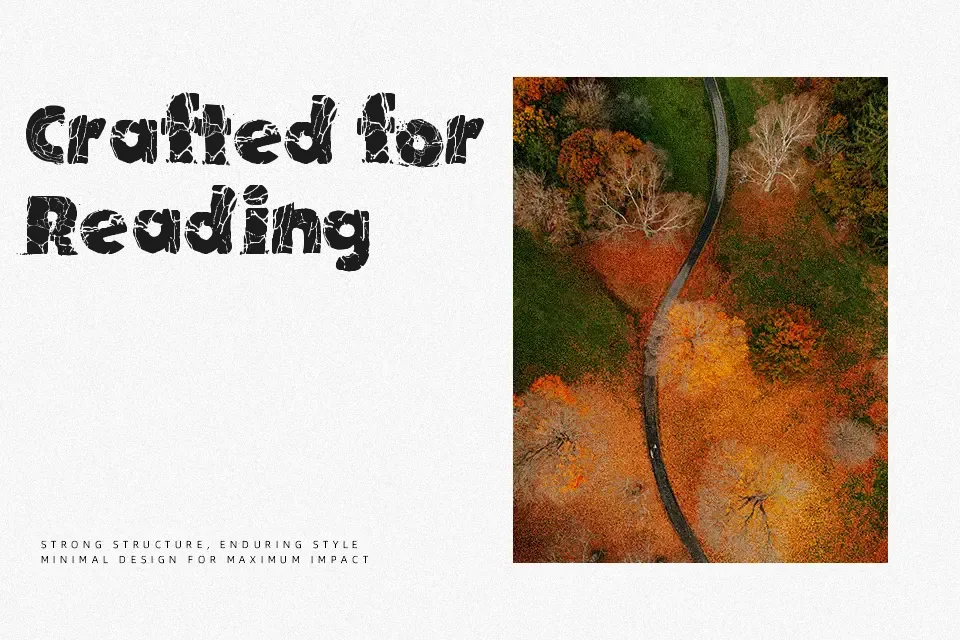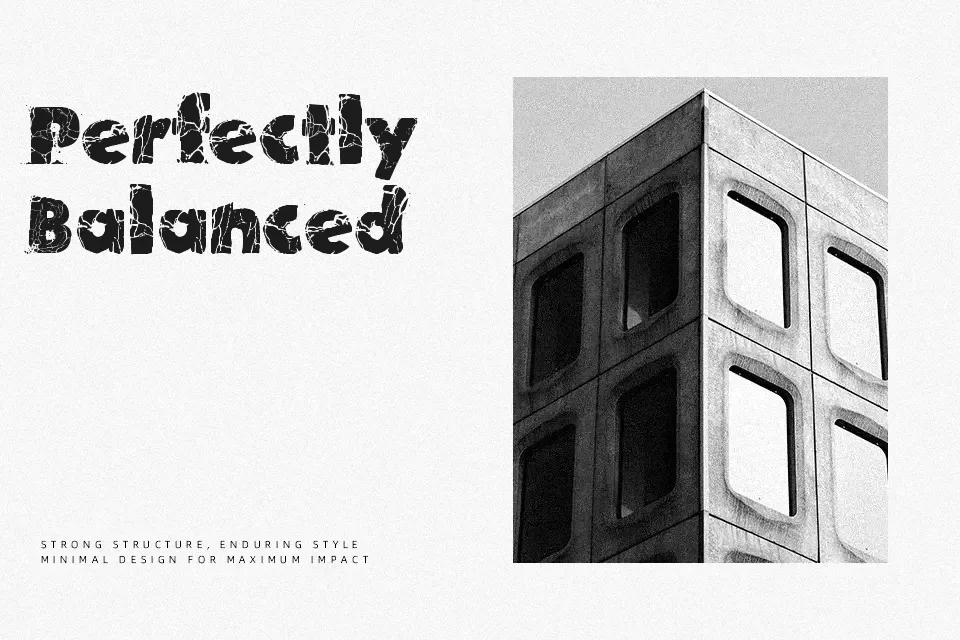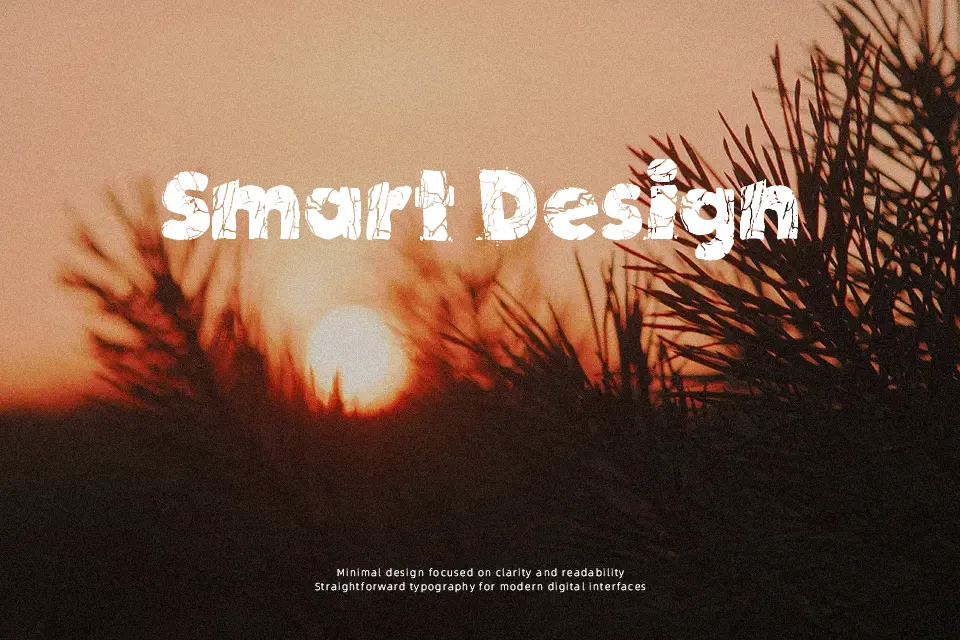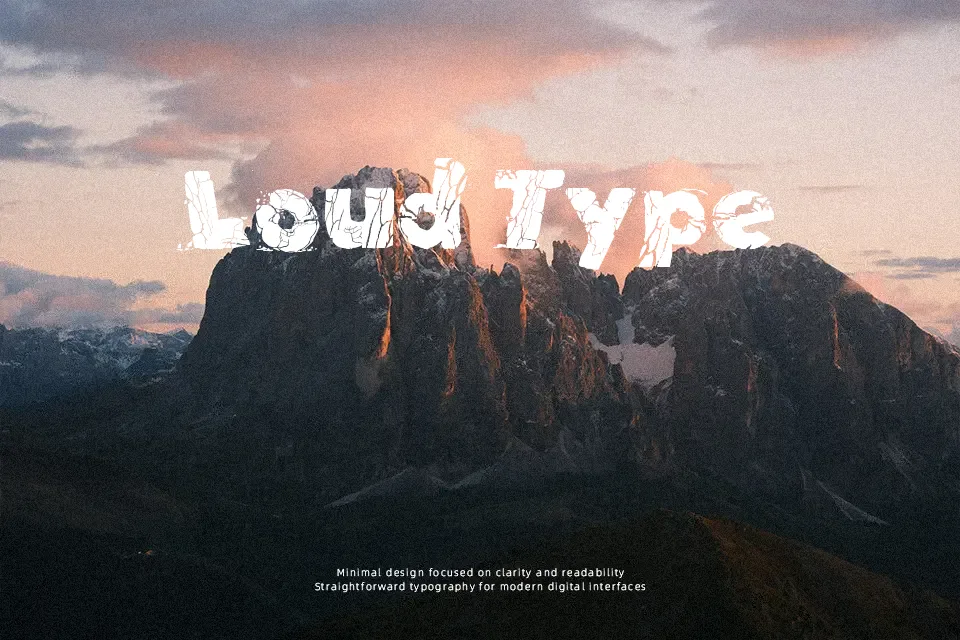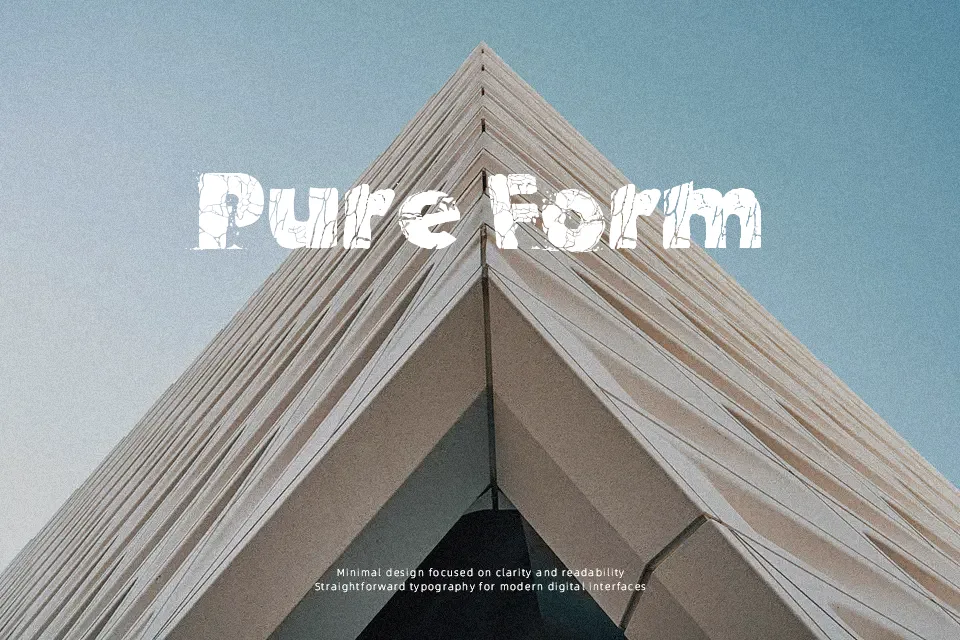
TNT X Plosion Font
Designed by Galdino Otten Fonts
TNT X Plosion Font demonstrates how heavy distressing can coexist with disciplined display architecture. Each letterform is built on an ultra-bold sans-serif skeleton shattered by jagged internal cracks, erratic fissures, and fragmented edges. The uniform stroke weight and consistent block proportions preserve basic word shapes despite the aggressive erosion across the glyphs. Spacing between characters is set relatively snug, ensuring that punchy headlines hold together rather than scattering across the layout. Readability remains sharp at headline sizes, making the typeface exceptionally effective for esports graphics, action video game titles, and industrial packaging. However, the intricate distress marks clog heavily at small text sizes, rendering dense paragraphs and interface labels illegible.
– Action video game titles
– Esports tournament graphics
– Heavy metal album packaging
– Extreme sports event posters
– Long body text
– Mobile app interface labels
– Corporate annual reports
– Dense editorial paragraphs
Perfect for gaming, headline, and logo, with a bold and decorative style.